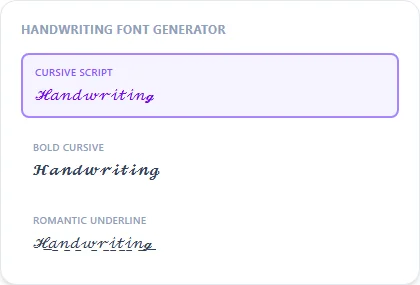
Handwriting Font Generator
True handwriting varies letter to letter in a way no font can fully fake, but Unicode's script block gets close enough for a bio, note, or caption that wants a personal, handwritten feel.
Script is the closest match to everyday handwriting; Bold Cursive adds more weight for a marker-pen look, and Romantic Underline pairs script with a flowing underline for a signed-note effect.
Handwriting Font Generator style examples: Cursive Script, Bold Cursive, Romantic Underline, rendered on the word "Handwriting"
Why this reads as 'handwritten' without being a scan
Genuine handwriting varies stroke to stroke in a way no single font, Unicode or otherwise, can reproduce exactly. What this generator offers instead is a consistent script typeface built from Unicode's Mathematical Script block, which is close enough to read as personal, informal writing at a glance without needing a scanned signature or a custom handwriting font file.
Notes, cards, and signed-off messages
Script and Romantic Underline work well for anything meant to feel personally written: a digital birthday card message, a closing line on a note, or a caption that wants a softer tone than the platform's default font.
Is this real handwriting, or a font trick?
It's Unicode script characters that read as handwriting-style — not a scan or trace of actual handwriting, and not a font file, which is exactly why it pastes as plain text anywhere.
Can I sign off a message with this style?
Yes, Script or Bold Cursive both work well as a closing signature line on a note, card, or message.